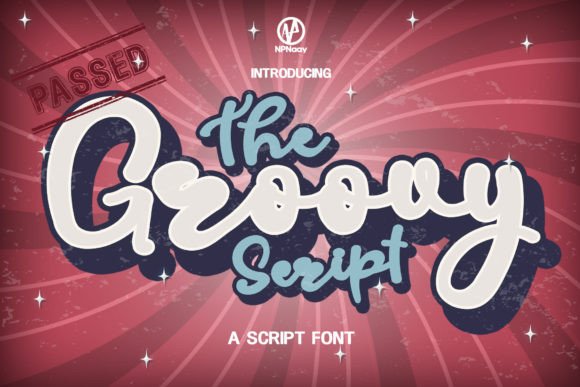
Groovy Script Font: Add a Retro Touch to Your Designs
Are you looking for a font that can add a special retro touch to your designs? Look no further than the Groovy Script Font. This cool, vintage-style handwritten font is perfect for a variety of design projects, from logos and branding to invitations, stationery, wedding designs, social media posts, and more.
What is Groovy Script Font?
Groovy Script Font is a carefully crafted font that mimics the look and feel of vintage handwriting. Its unique and elegant style makes it perfect for designers who want to add a touch of nostalgia to their work. The font is highly versatile and can be used for a wide range of design projects, from print materials to digital content.
Key Features of Groovy Script Font
- Vintage-style handwritten font: Groovy Script Font has a unique and elegant style that is reminiscent of vintage handwriting.
- Highly versatile: Groovy Script Font can be used for a wide range of design projects, from logos and branding to invitations, stationery, wedding designs, social media posts, and more.
Uses of Groovy Script Font
Groovy Script Font is a highly versatile font that can be used for a wide range of design projects. Here are some ideas to get you started:
- Logos and branding: Use Groovy Script Font to create a unique and memorable logo for your business or brand.
- Invitations and stationery: Add a touch of elegance and sophistication to your invitations and stationery with Groovy Script Font.
- Wedding designs: Groovy Script Font is perfect for wedding designs, including wedding invitations, programs, and decorations.
- Social media posts: Use Groovy Script Font to add a touch of personality and style to your social media posts.
- Print materials: Groovy Script Font can be used for a wide range of print materials, including brochures, flyers, and posters.
Benefits of Using Groovy Script Font
There are many benefits to using Groovy Script Font in your designs. Here are a few:
- Unique and elegant style: Groovy Script Font has a unique and elegant style that will set your designs apart from the crowd.
- Highly versatile: The font can be used for a wide range of design projects, making it a great addition to any designer’s toolkit.
Tips and Tricks for Using Groovy Script Font
Here are some tips and tricks for using Groovy Script Font:
- Use it sparingly: Groovy Script Font is a bold font, so use it sparingly to add emphasis to your designs.
- Experiment with different colors: Experiment with different colors to find the perfect combination for your design.
- Pair it with other fonts: Pair Groovy Script Font with other fonts to create a unique and interesting design.
- Pay attention to spacing: Pay attention to spacing to ensure that your design looks balanced and visually appealing.
Groovy Script Font is a unique and elegant font that can add a special retro touch to your designs. Its highly versatile and easy to use, making it perfect for designers of all skill levels. With its PUA encoding, you can access all glyphs and swashes easily. Whether you’re creating logos, branding, invitations, stationery, wedding designs, social media posts, or print materials, Groovy Script Font is a great choice.
- What is Groovy Script Font?: Groovy Script Font is a cool, vintage-style handwritten font.